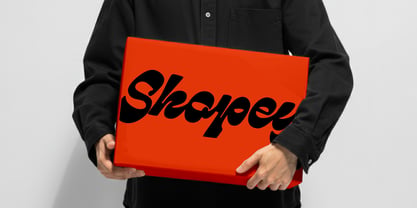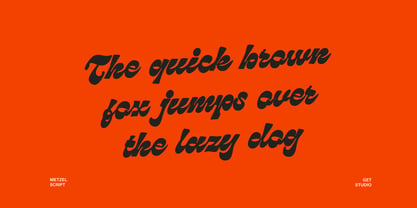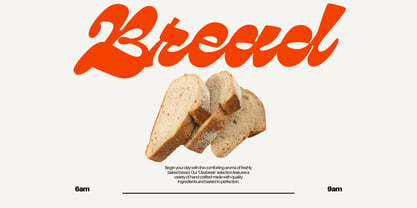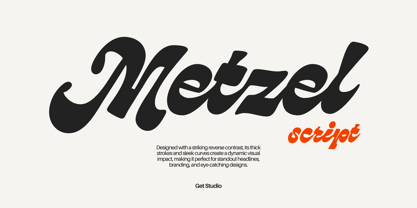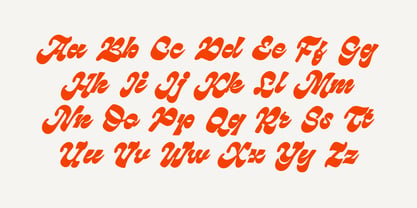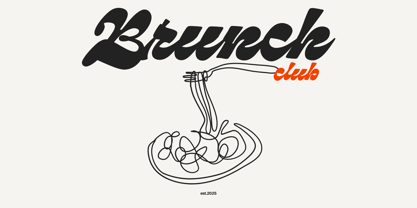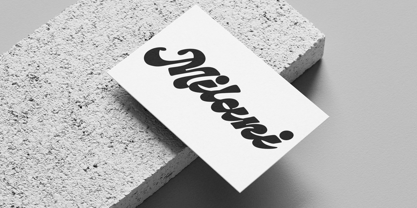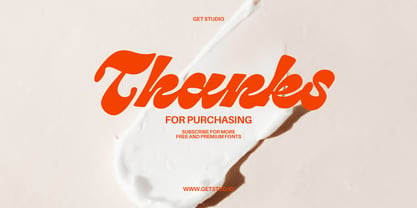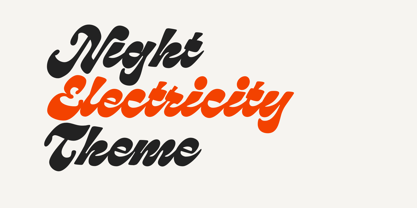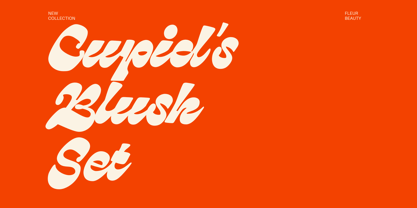
Metzel Script
by Get Studio
The Metzel Script Font Family was designed by Hermansyah and published by Get Studio. Metzel Script contains 1 styles. More about this family
Metzel is a bold script font that redefines retro aesthetics with a modern twist. Designed with a striking reverse contrast, its thick strokes and sleek curves create a dynamic visual impact, making it perfect for standout headlines, branding, and eye-catching designs.
Inspired by a fusion of vintage signage and contemporary bold minimalism, Metzel exudes confidence and character, balancing handcrafted artistry with a clean, polished look. Every curve and stroke is meticulously crafted to deliver a display font that speaks powerfully, whether in editorial design, logos, or packaging.
With its handmade essence, Metzel carries a raw yet refined energy that sets it apart. Its bold letterforms embrace a unique rhythm, blending nostalgia with modern sensibilities to create a font that feels both familiar and fresh.
Designers: Hermansyah
Current Foundry: Get Studio